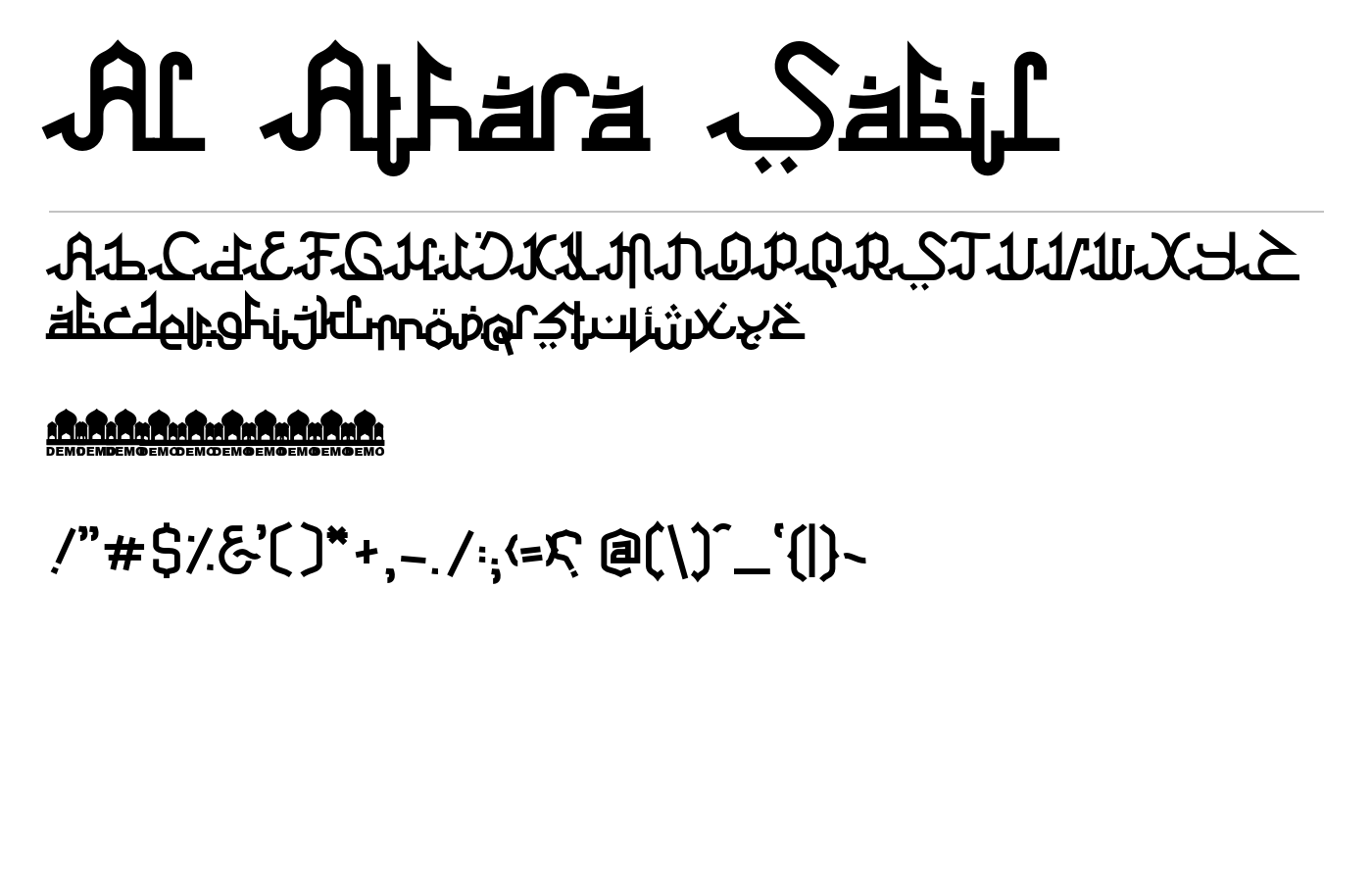
Al Athara Sabil is a bold, geometric display font that blends modern design with traditional Arabic calligraphic influences. Its high-contrast, angular strokes and unique letterforms give it an expressive and artistic personality, making it ideal for striking headlines, cultural branding, and creative projects that seek a distinct and contemporary feel. This font works best in large sizes where its intricate details and strong visual impact can truly stand out.
Al Athara Sabil Font
About Al Athara Sabil Font